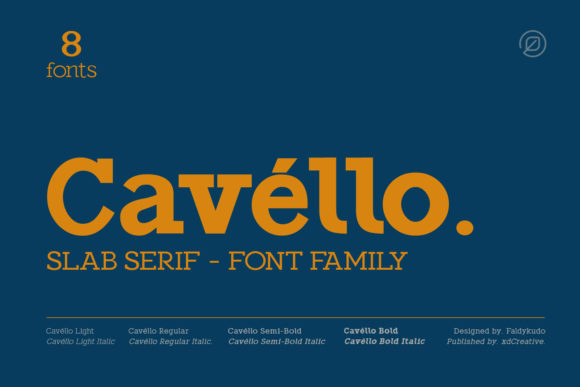
Step into the realm of sophistication and elegance with Cavéllo Font, a captivating slab serif font family designed to allure fashion enthusiasts and creative visionaries. Experience the bold and clean strokes of Cavéllo, where each letter exudes confidence, making it the ultimate choice for fashion brands seeking to make a statement.
Immerse yourself in the versatility of Cavéllo, a font family that effortlessly adapts to a myriad of creative endeavors. Whether you're crafting letterheads, designing titles, or creating eye-catching stationery, Cavéllo's strong presence commands attention, leaving a lasting impression on your audience.
With three distinct forms – italics, obliques, and uprights – and four weights ranging from light to bold, Cavéllo provides endless possibilities for customization. Unleash your creativity and explore the nuances of each weight, tailoring your designs to perfectly match your vision.
Beyond its captivating aesthetics, Cavéllo is a highly functional font family, ideal for logos, t-shirts, web design, motion graphics, and print projects. Its crisp and legible characters ensure readability, even in the most challenging applications. Make a bold statement with Cavéllo's headings, where each letter becomes a work of art.
Included in this comprehensive package are eight OpenType fonts, providing a complete set for your creative arsenal. Elevate your designs to new heights with Cavéllo-Light, Cavéllo-Light Italic, Cavéllo-Regular, Cavéllo-Regular Italic, Cavéllo-Semi Bold, Cavéllo-Semi Bold Italic, Cavéllo-Bold, and Cavello-Bold Italic.
Embrace the allure of Cavéllo Font, a font family that embodies fashion, sophistication, and creativity. Experience the power of bold typography and elevate your designs to the next level.